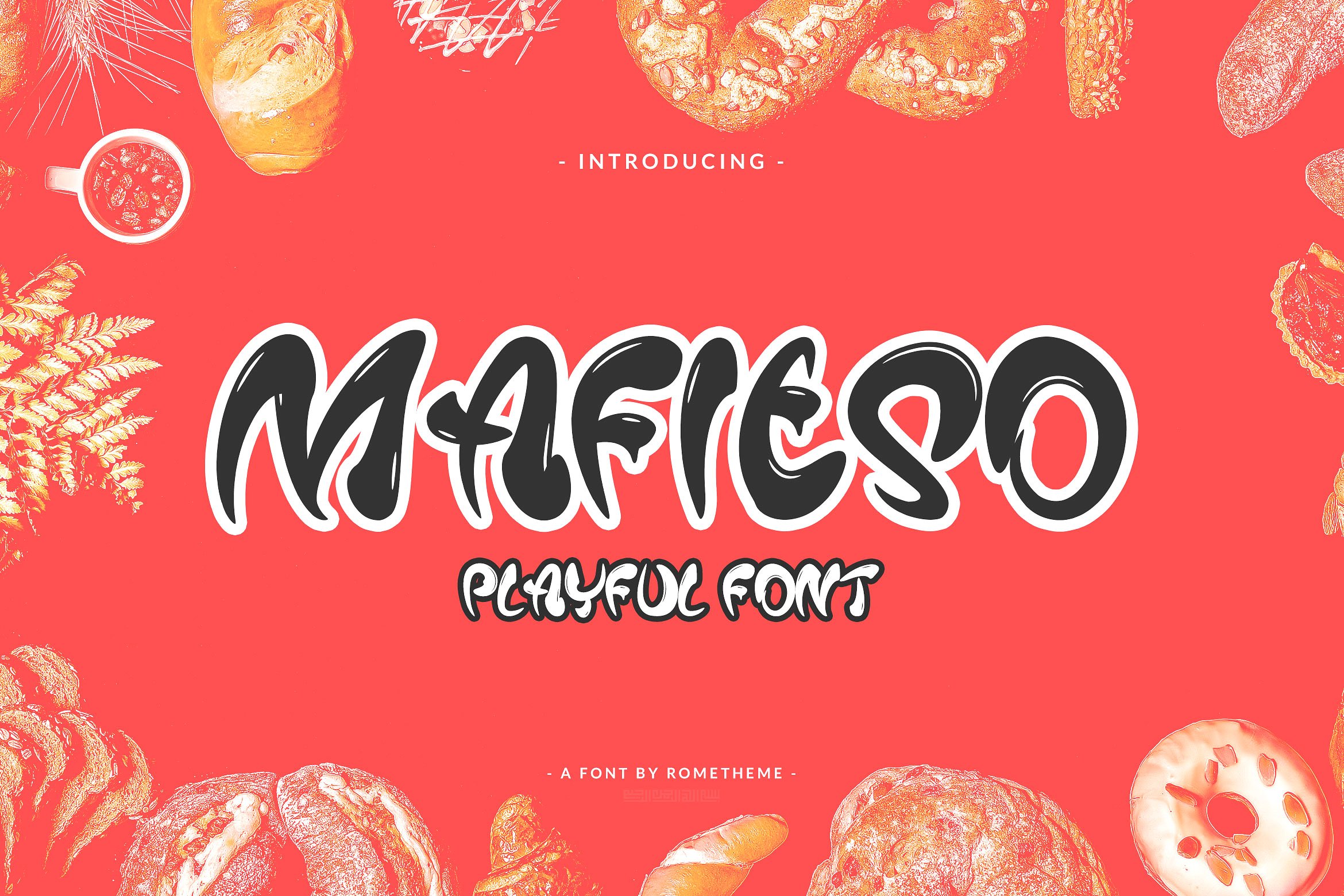
Mafieso Brush
Mafieso Brush Font
Mafieso is a playful font. Mafieso a display font for packaging, logo, branding, website headline, food menu, kids or woman apparel designs, signatures, and all project design other. Mafieso comes with sweet, playful, cute style. It contains a full set of uppercase letters, a large range of punctuation, and numerals.